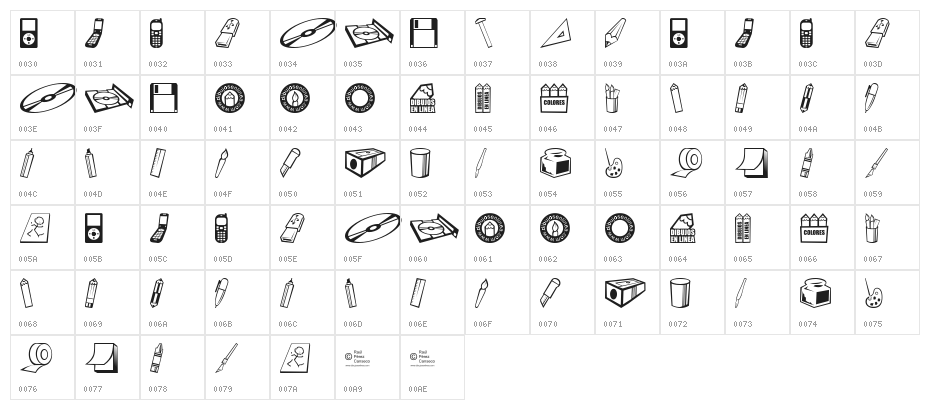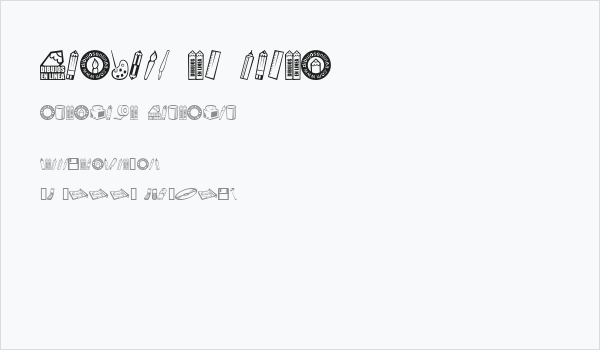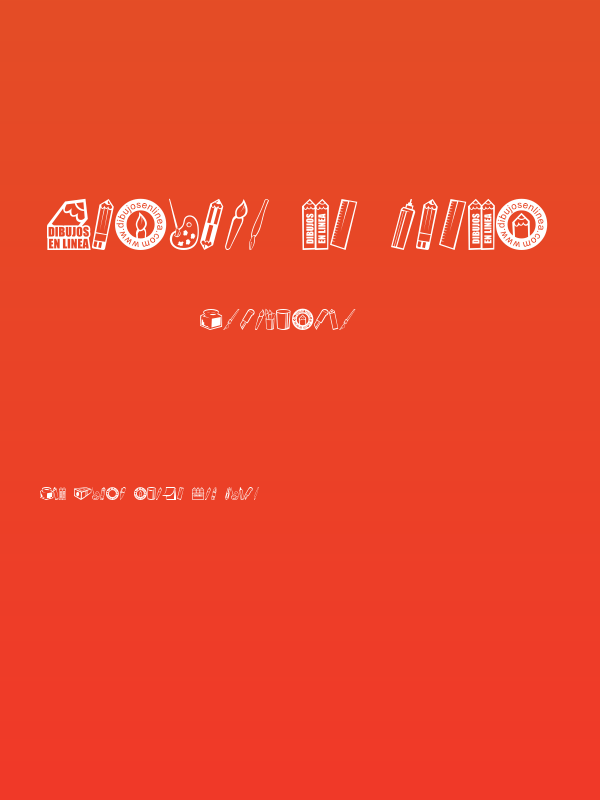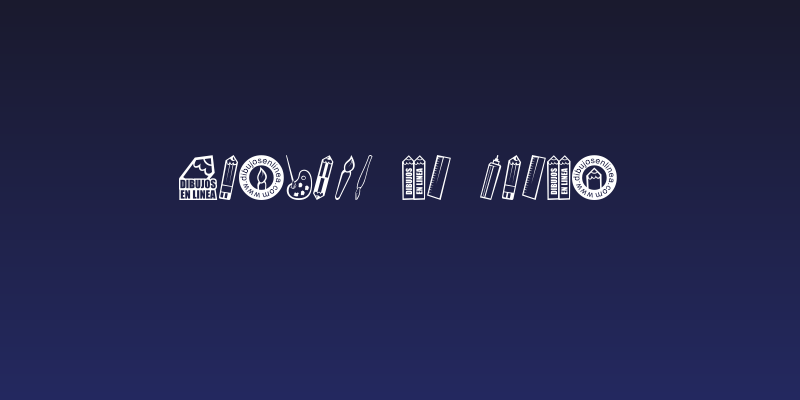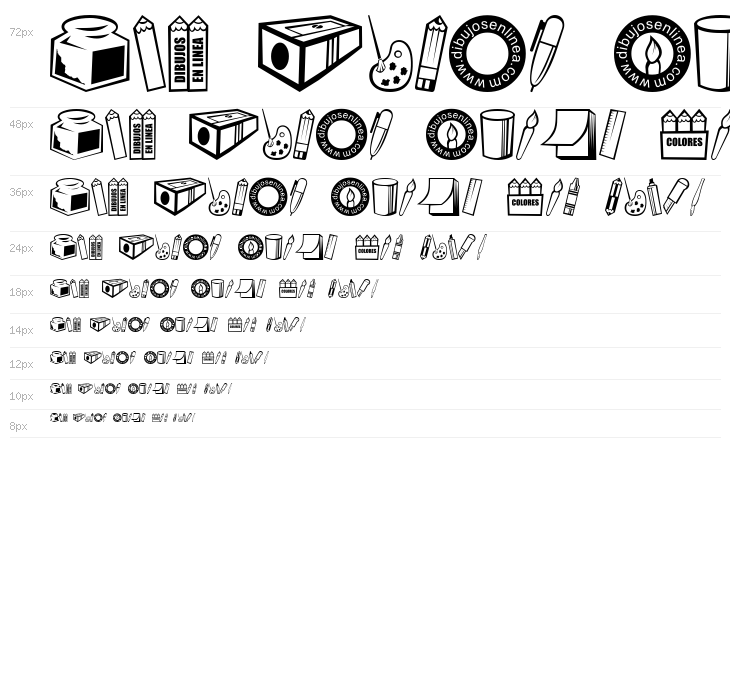
dibujos en linea Font
dibujos en linea Description
A decorative dingbat font featuring a variety of outlined and filled line-art illustrations related to art supplies, drawing tools, stationery, and some technology items. The glyphs include pencils, paintbrushes, palettes, erasers, rulers, tape, mobile devices, CDs, floppy disks, and geometric tools, all rendered in a clean, cartoon-like style.
| Overall Style | Decorative, Playful, Cartoon-like |
| Use Case | Icons, Decorative elements, Educational graphics |
| Proposed Projects | Educational materials, art class posters, creative worksheets, coloring books, craft labels, and website icons for art-related content. |